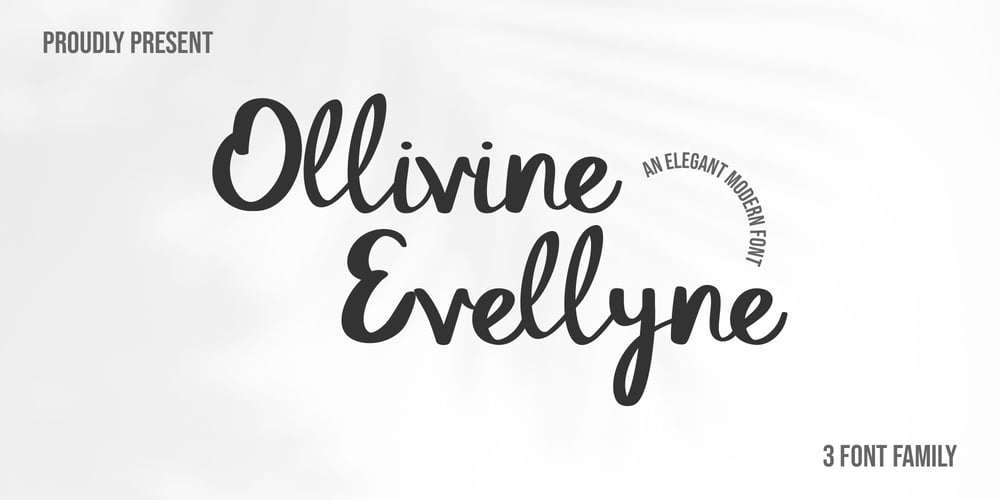
FA Ollivine Evellyne Font Family was designed by Frederik Aristaputra and published by Faristaputra. FA Ollivine Evellyne contains 3 styles and family package options. Introducing Ollivine Evellyne, a script font blending timeless elegance with modern flair. Perfect for adding sophisticated charm to your designs, its graceful strokes and playful curves bring a touch of refined whimsy.